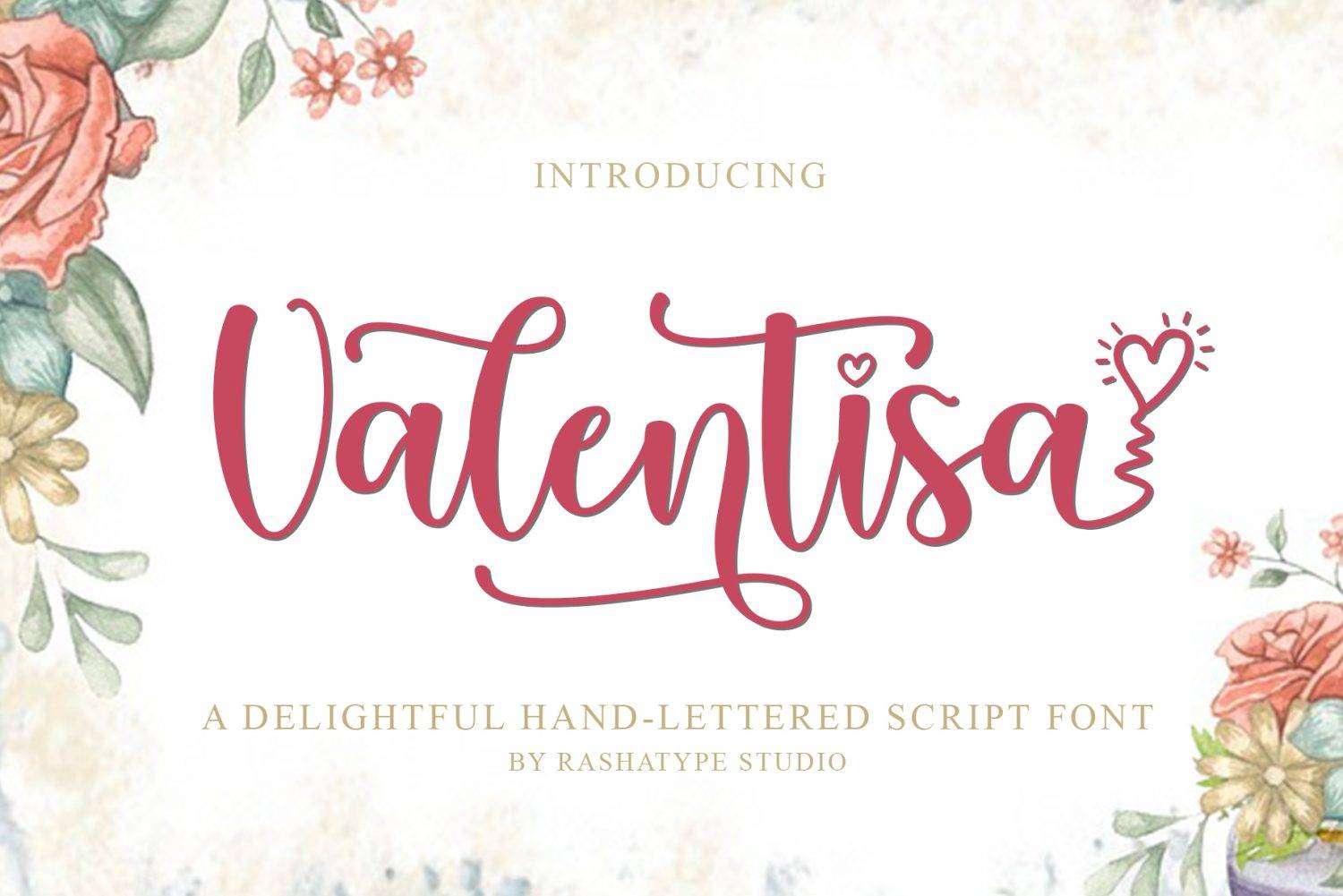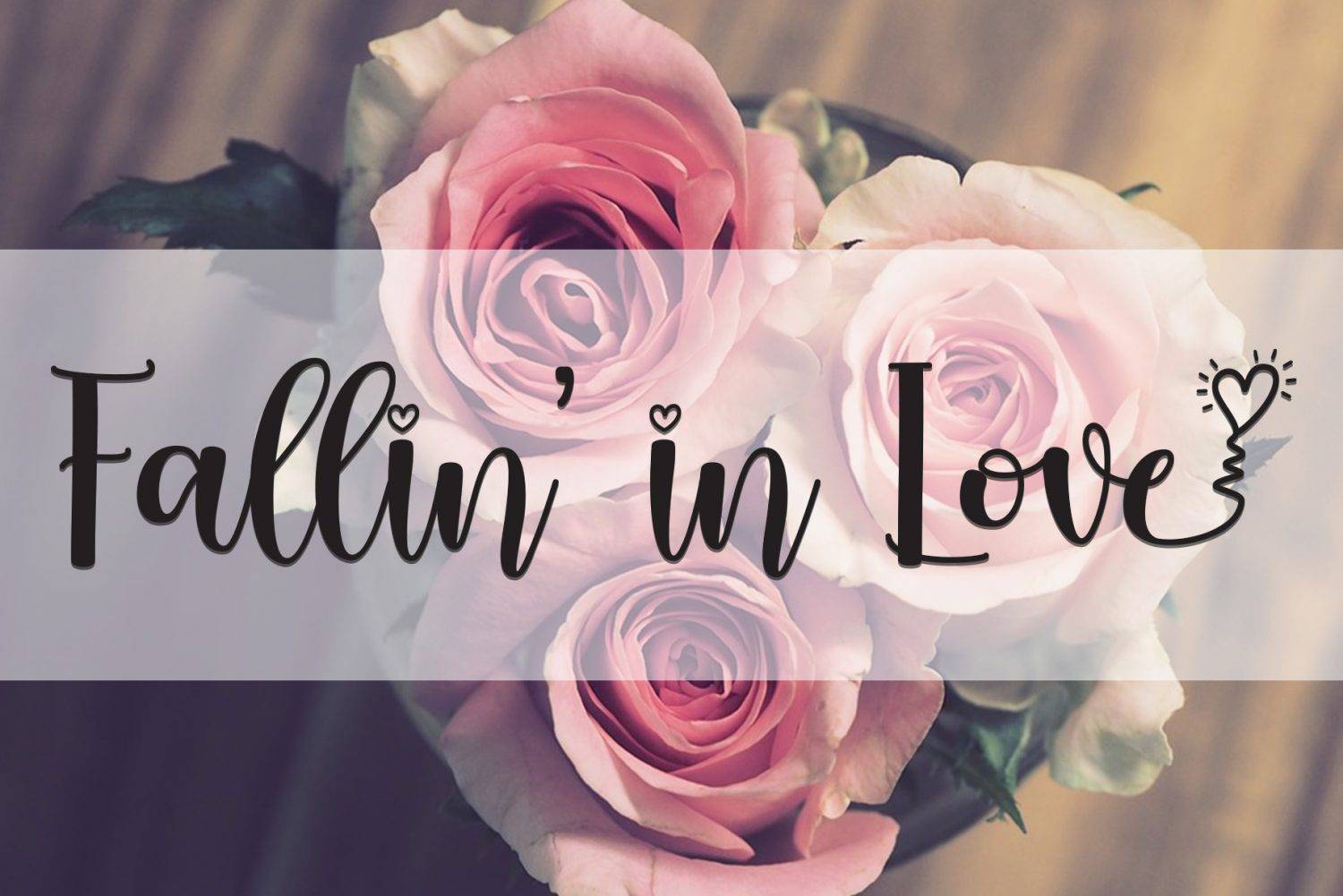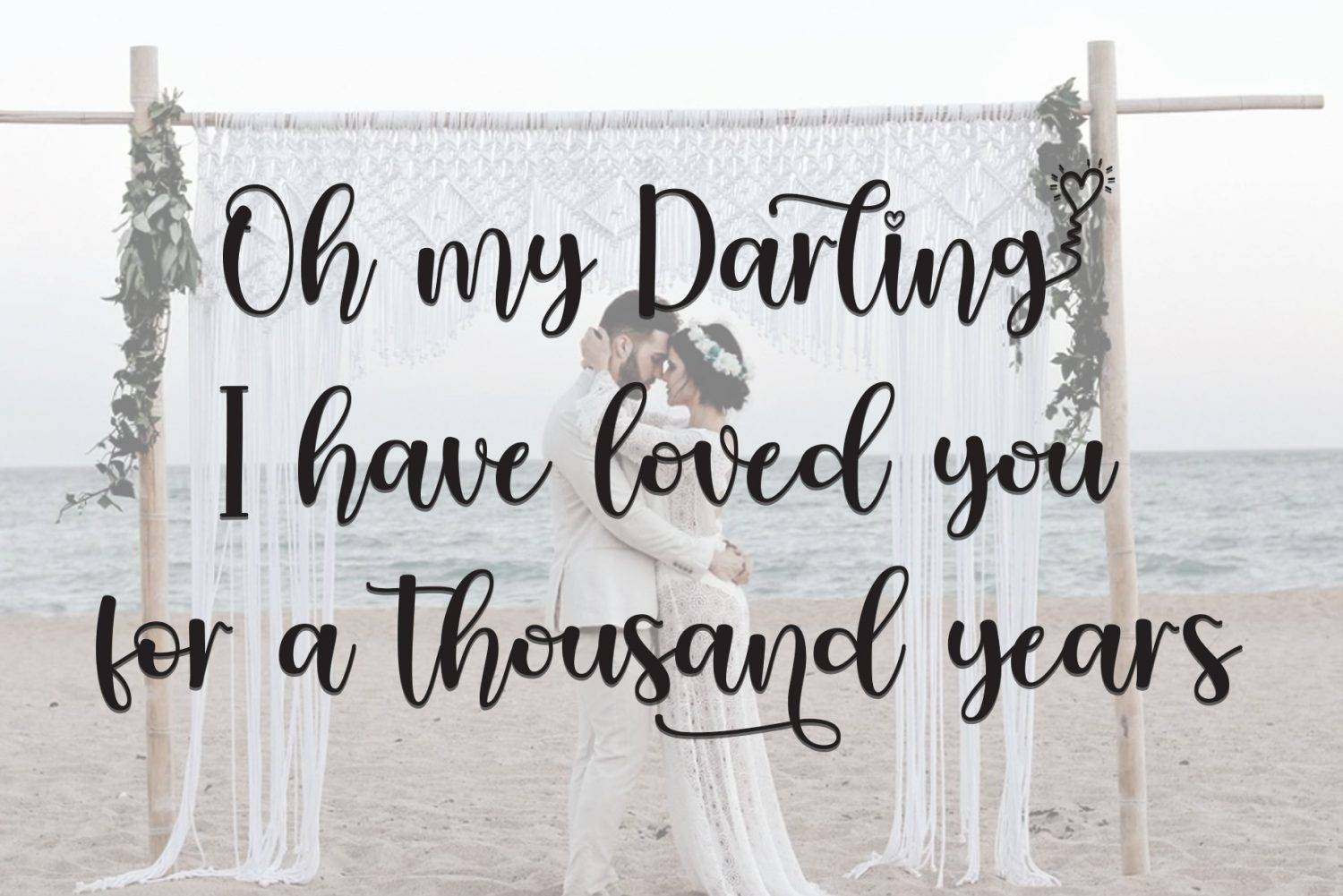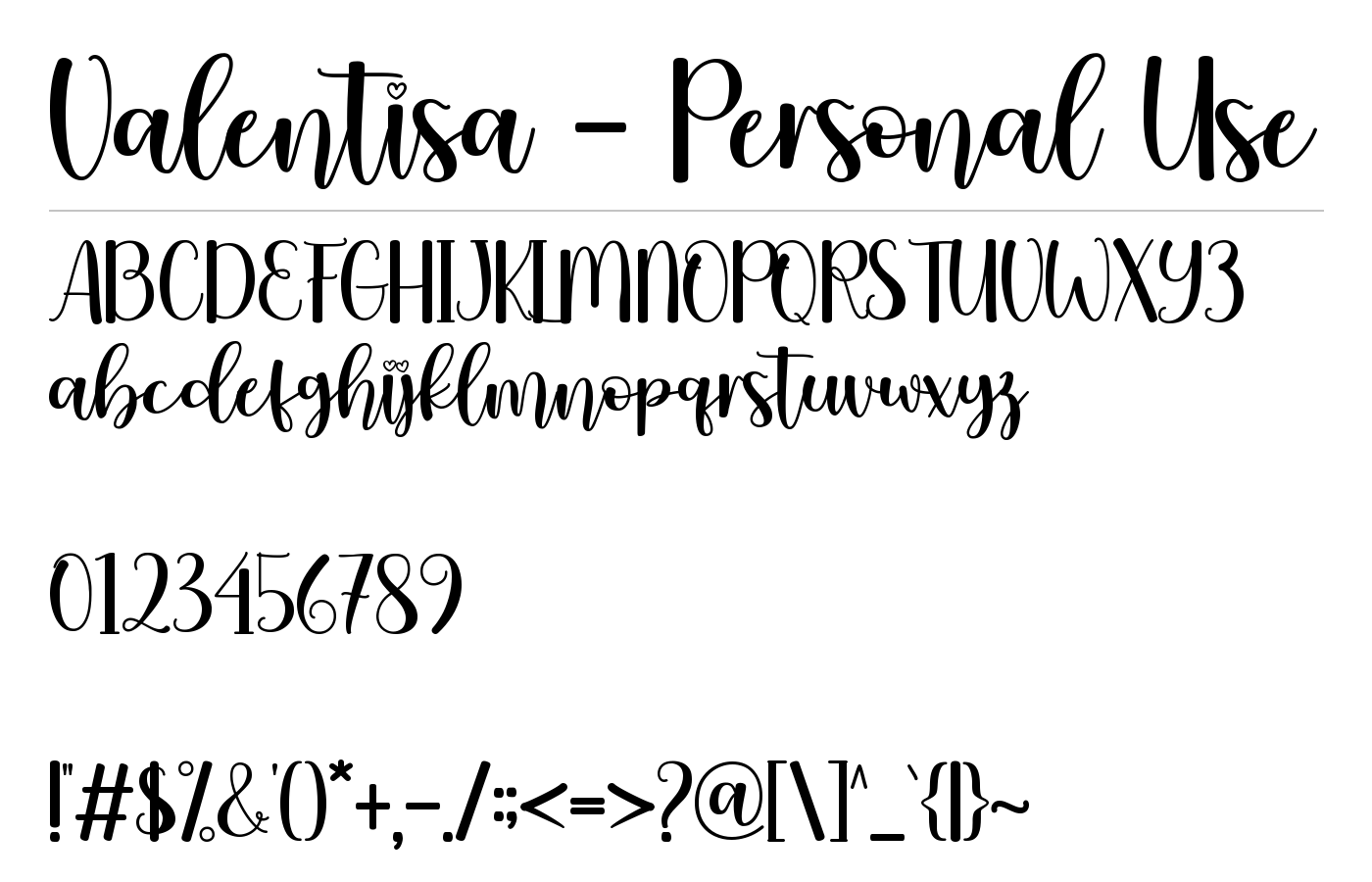
Valentisa is a charming, handwritten script font with elegant, flowing lines and playful flourishes, including heart-shaped dots and swirled terminals. Its light to medium weight and tall x-height give it a delicate yet readable style, perfect for romantic, feminine, and creative designs. Ideal for invitations, branding, and stylish headlines, Valentisa adds a warm and personal touch that enhances a friendly and whimsical mood.
Valentisa Font
About Valentisa Font
| Font family | Valentisa Font |
| Designer | Endri Sulistyawan |